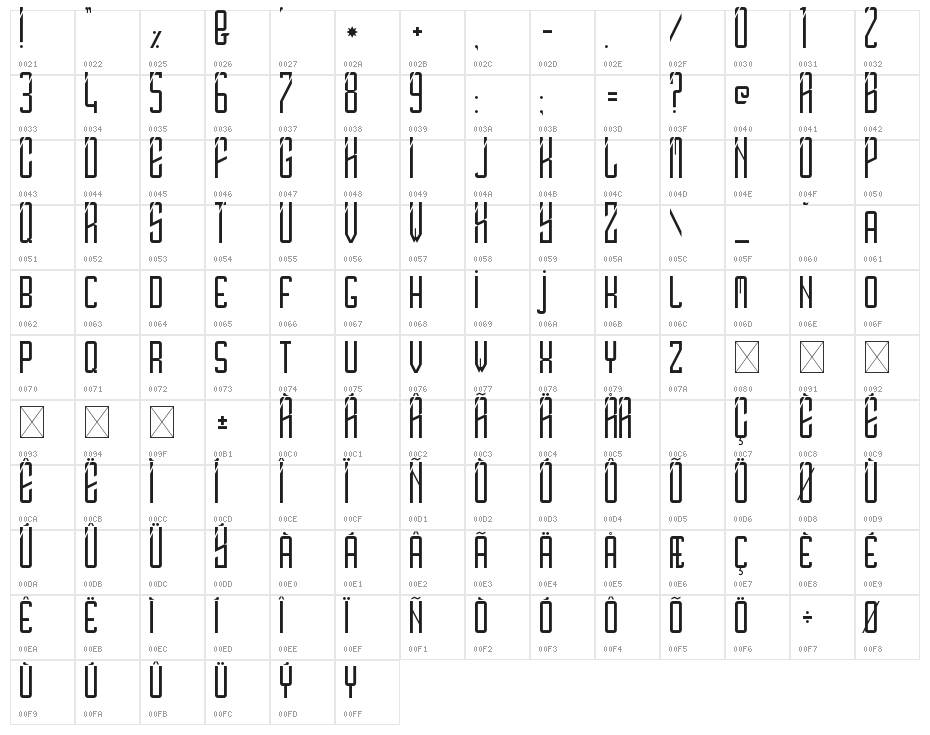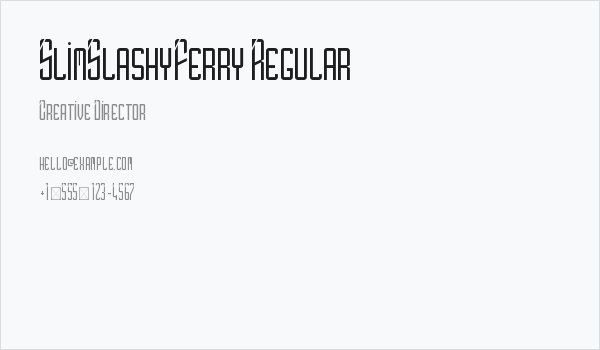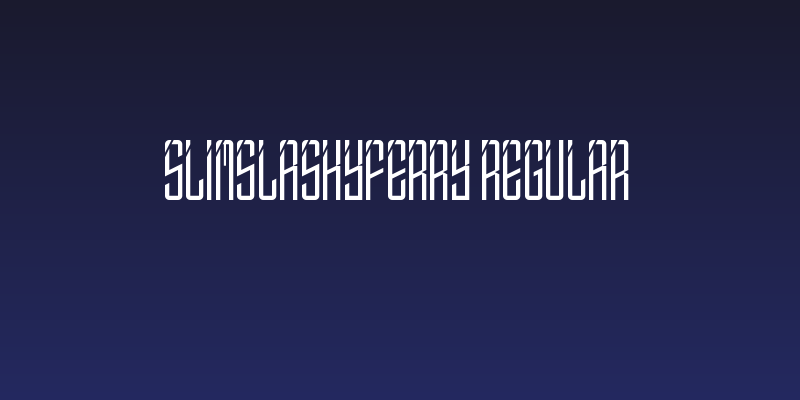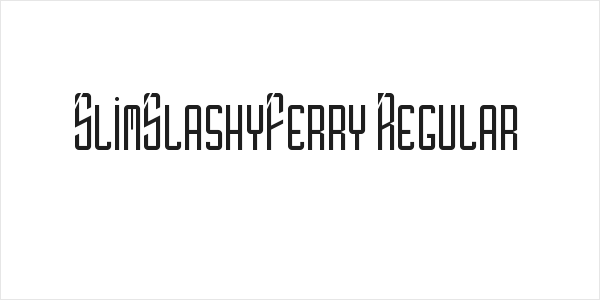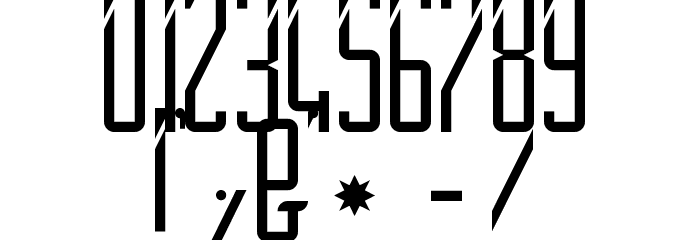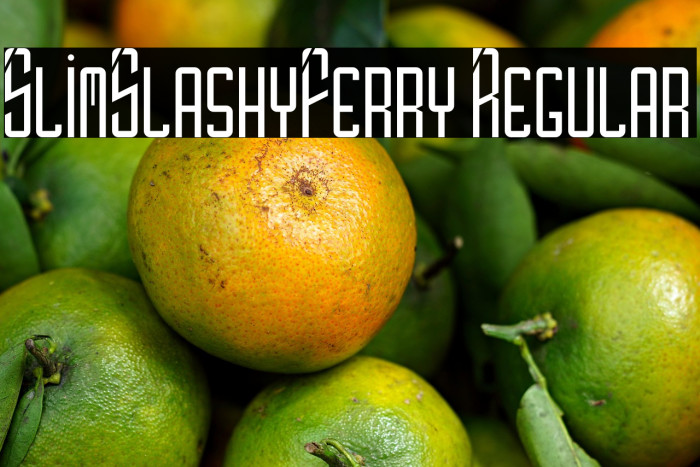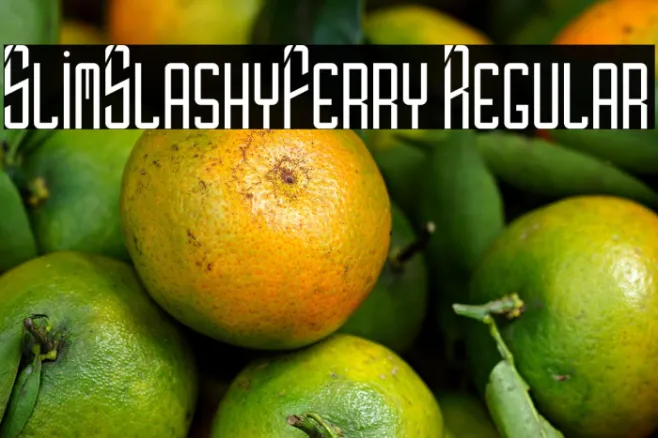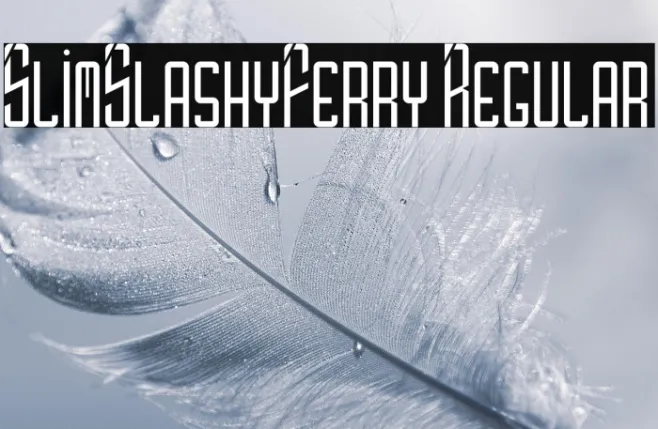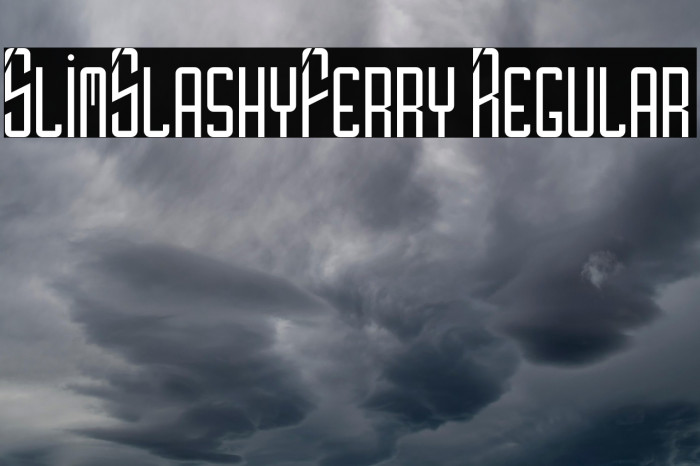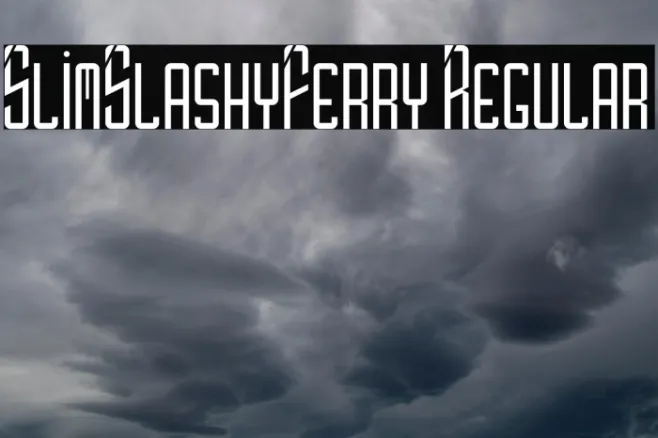
SlimSlashyFerry Regular Font
SlimSlashyFerry Regular Description
This font features a unique and modern design with elongated, narrow characters that have a distinct slashed appearance. The uppercase letters are tall and slender, with sharp angles and a futuristic feel. The lowercase letters maintain the same narrow structure, creating a cohesive look across the alphabet. Numbers and special characters follow the same stylistic approach, ensuring consistency throughout. The overall design is sleek and contemporary, making it suitable for projects that require a cutting-edge aesthetic.
| Proposed Projects | Ideal for tech-related branding, futuristic posters, and modern digital interfaces. |